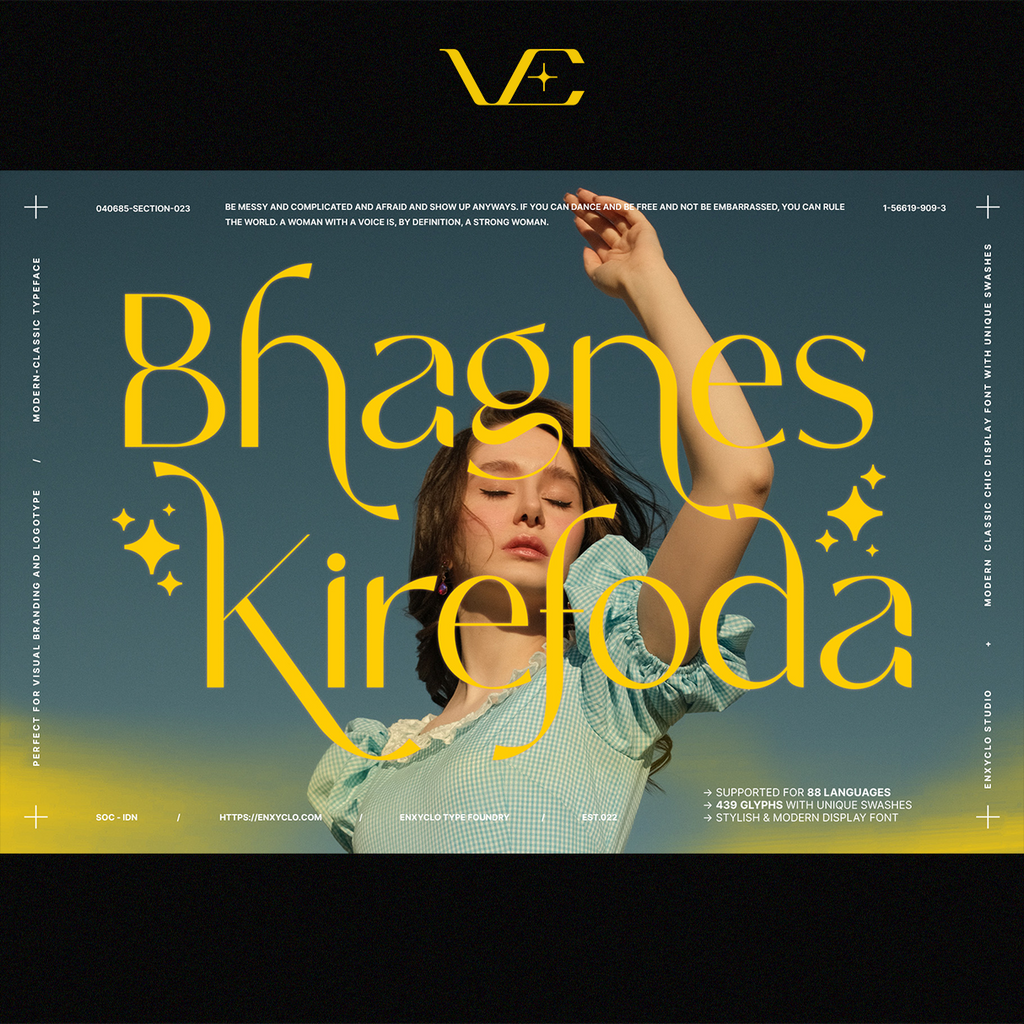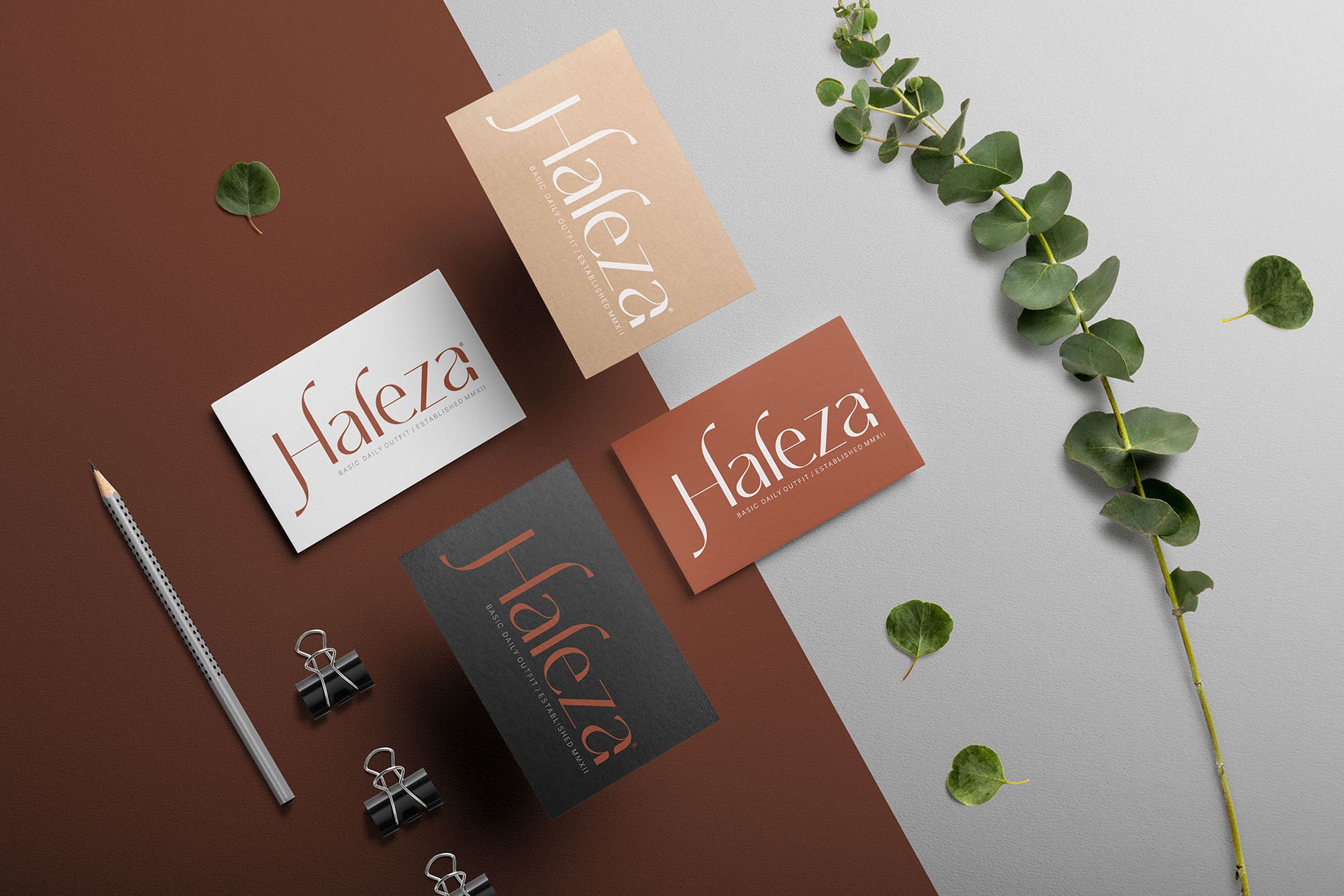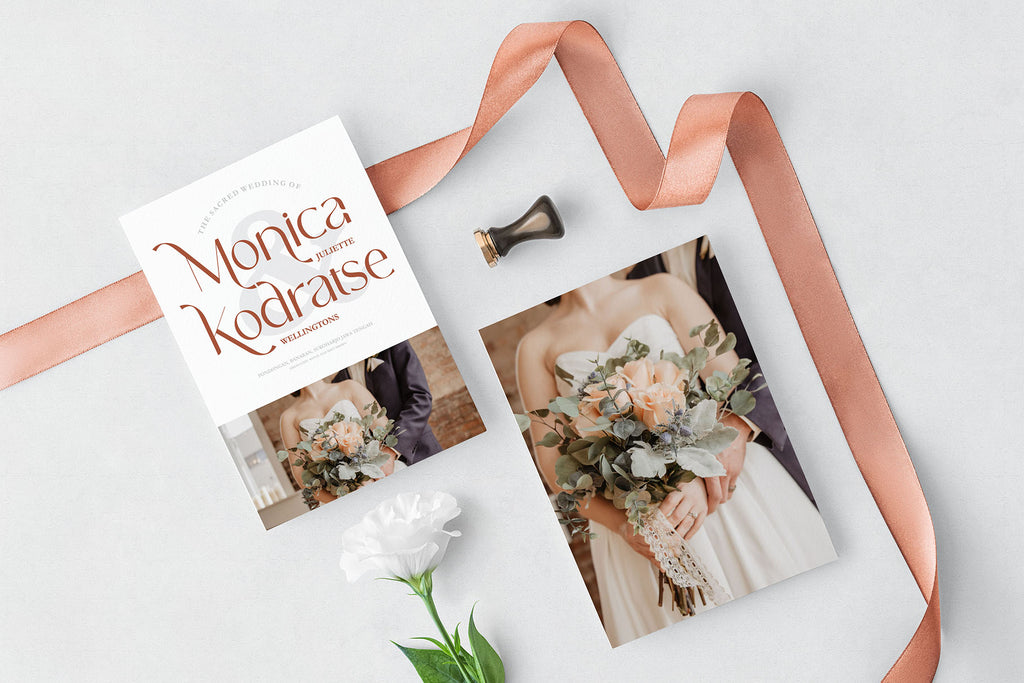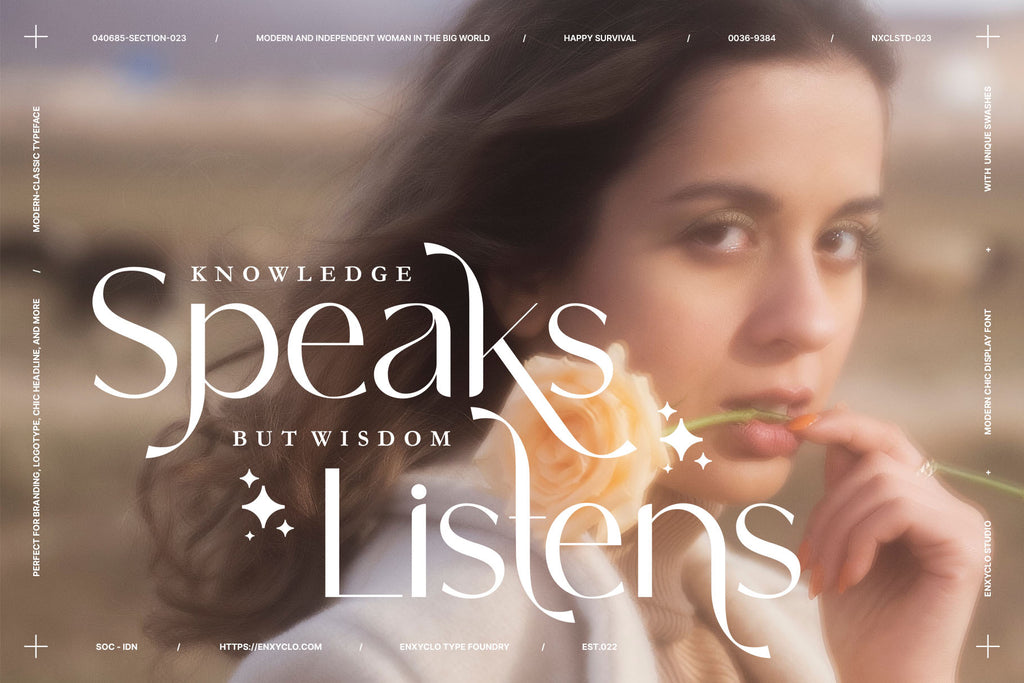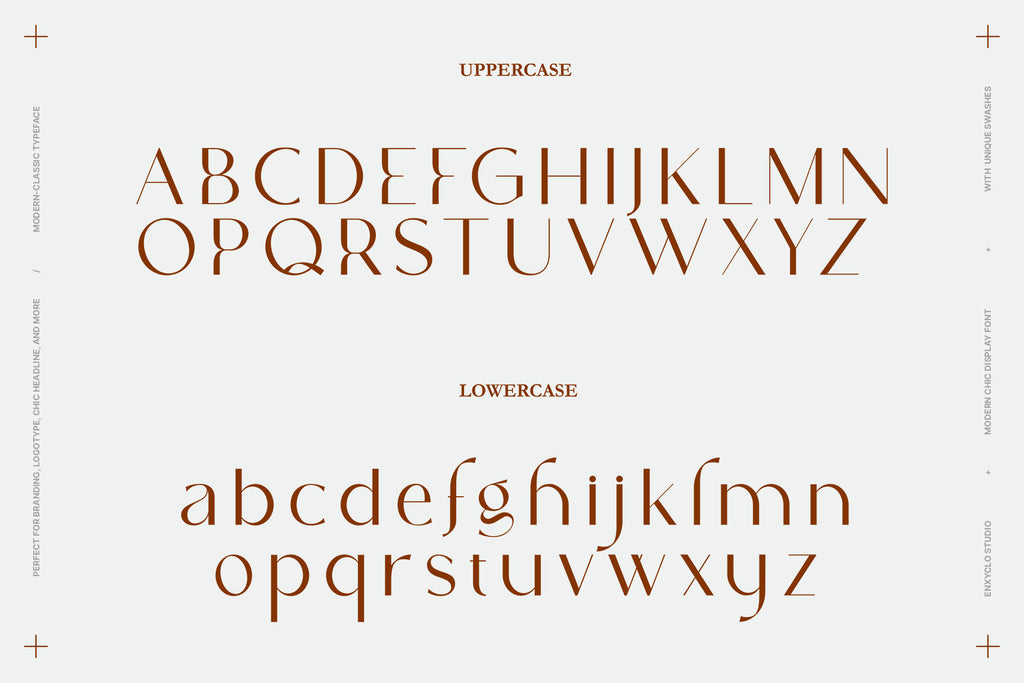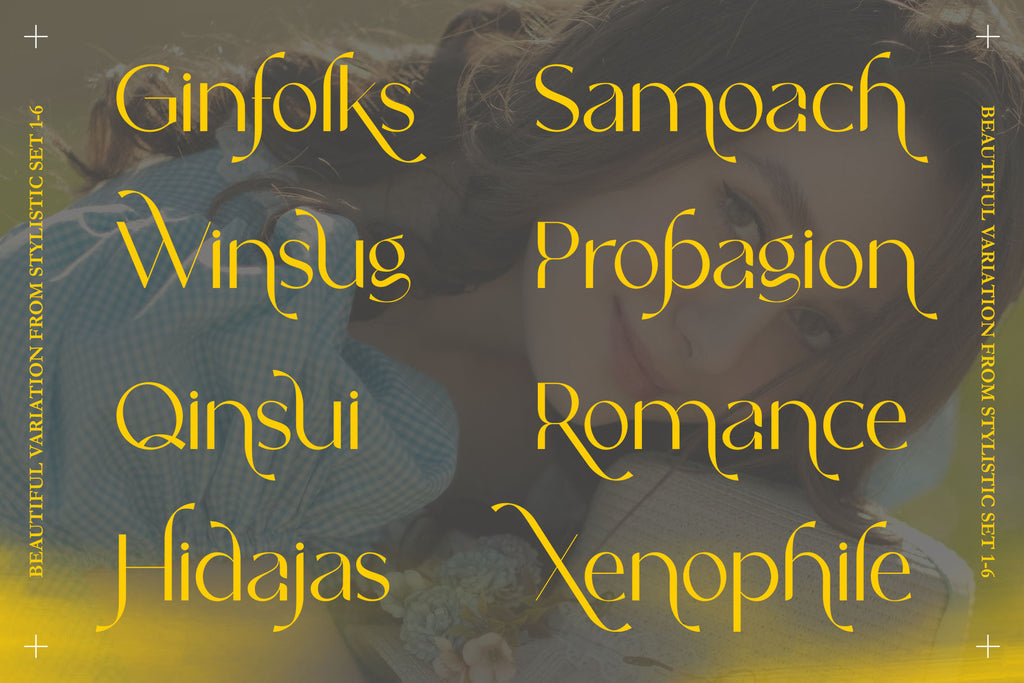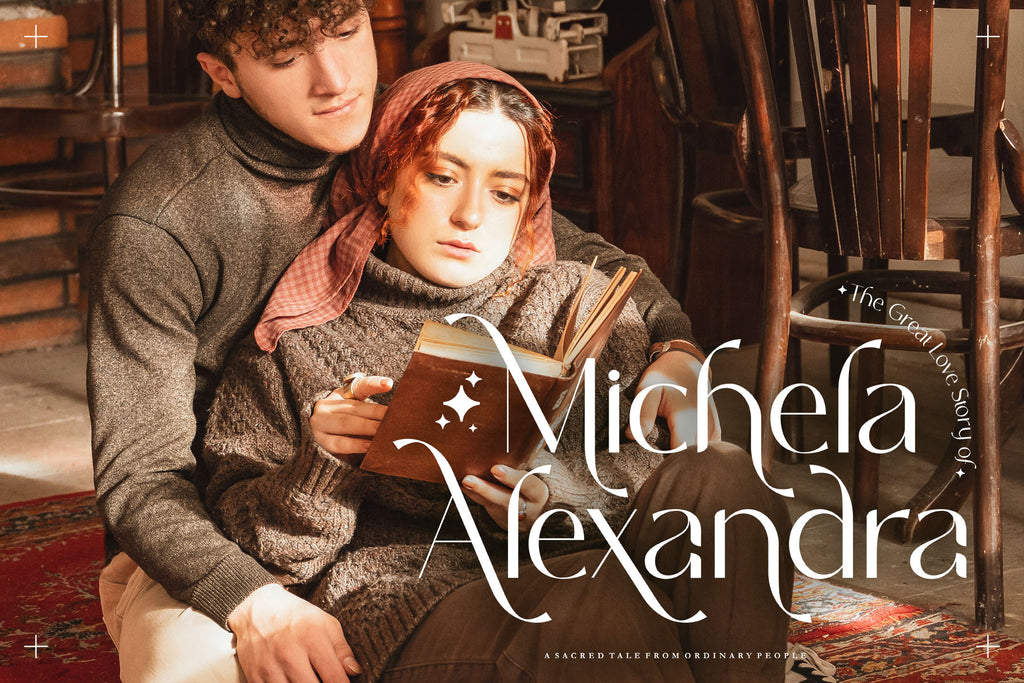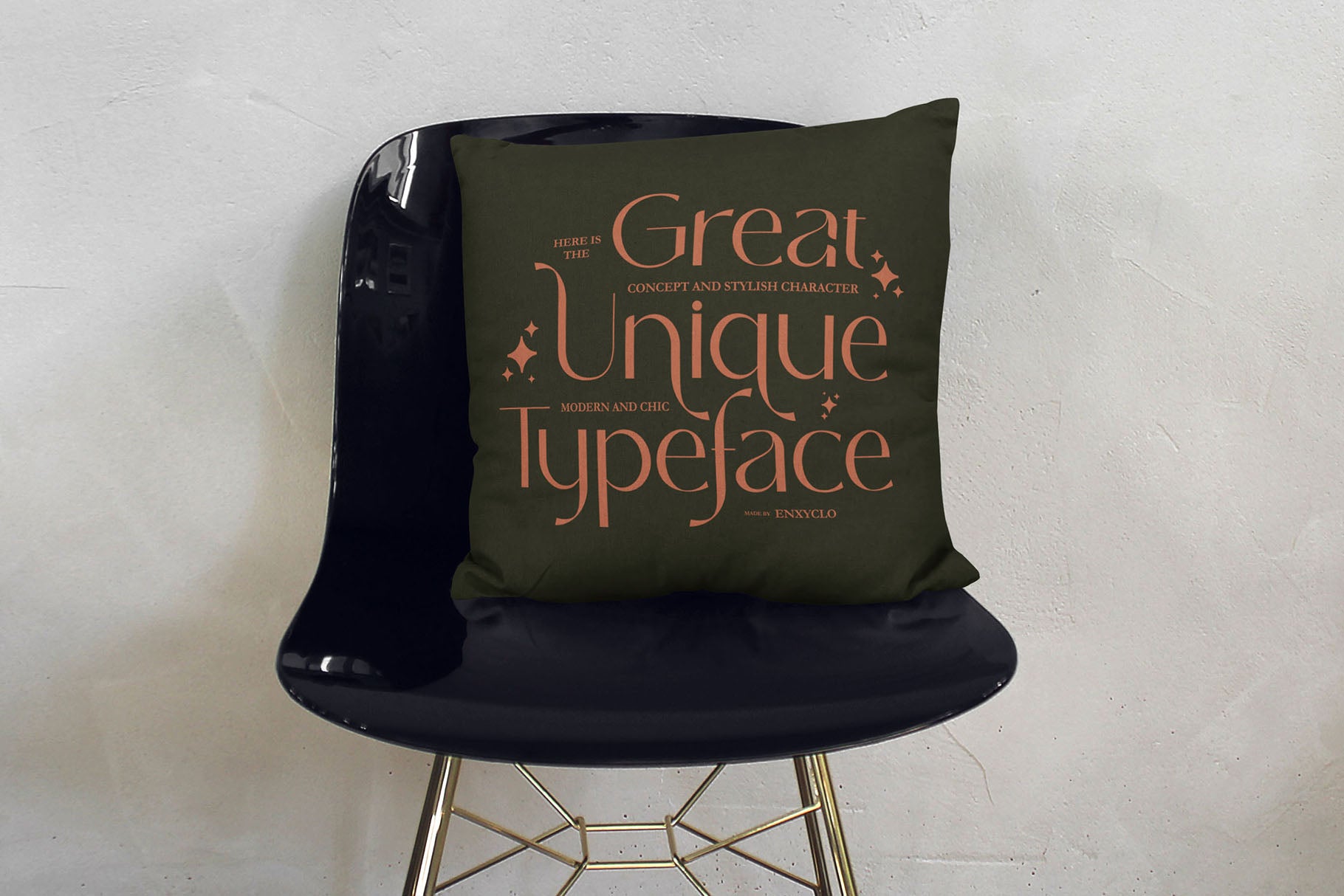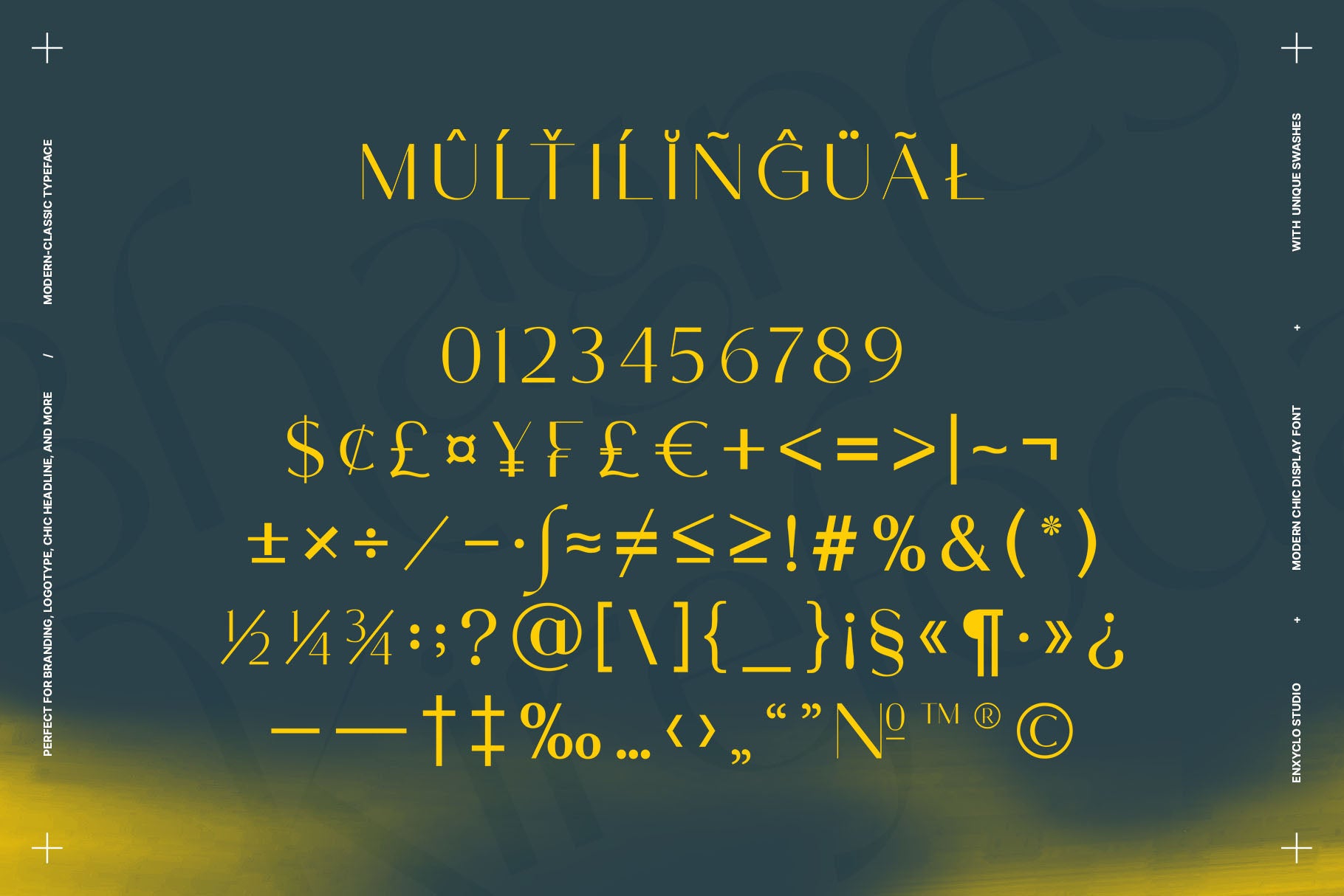
NCL BHAGNES KIREFODA • Serif Typeface
NCL BHAGNES KIREFODA is unique modern chic sans font with unique swashes. Masterfully designed to become a true favorite, this font has the potential to bring each of your creative ideas to the highest level! It was purposely crafted to be used in large point sizes, although it doesn’t lose its magic in small point sizes. It is perfect for creative branding, event, headline, billboard, magazines, website, titles, poster, branding, t-shirt design, and logos. No matter the topic, this font will be an incredible asset to your fonts’ library, as it has the potential to elevate any creation. With this beautiful font, absolutely you can make your project stand out from the rest.
- Stylistic Set 1-6